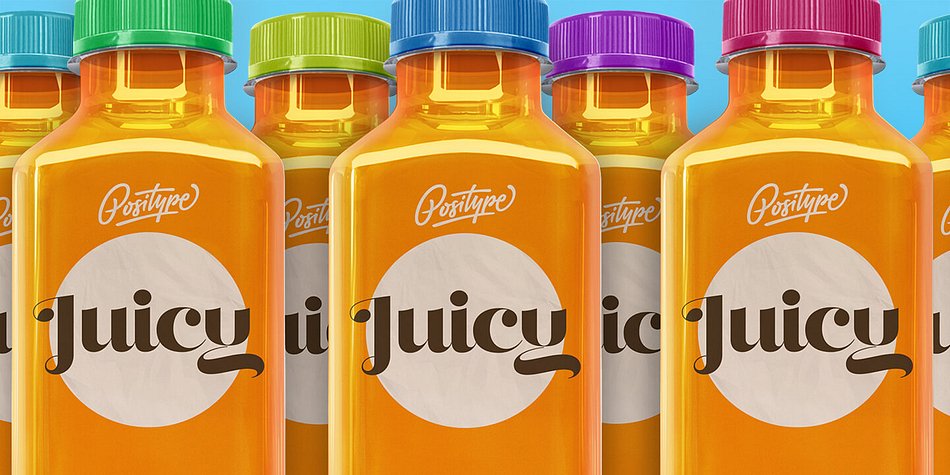
Juicy
Designed by Neil Summerour, Juicy is an art deco font family. This typeface has twelve styles and was published by Positype.
Juicy is different… in a good way. An art deco-inspired, high-contrast, upright semi-script, layered typeface best describes the playful letterforms that make up Juicy Pro (semi-connected) and Juicy Simple (unconnected). Great care has been taken to provide a wide complement of options and intelligent letter combinations thanks to OpenType. And that’s right, Juicy *is* a layered semi-script typeface. Pro and Simple variants provide a full character set (yep, lowercase). Pro variants include a wide variety of Stylistic, Swash, and Titling Alternates to really allow the expressiveness of the typeface shine… and all characters are available in the layered font counterparts… no shortcuts were taken on the delivery of this typographic chimera.